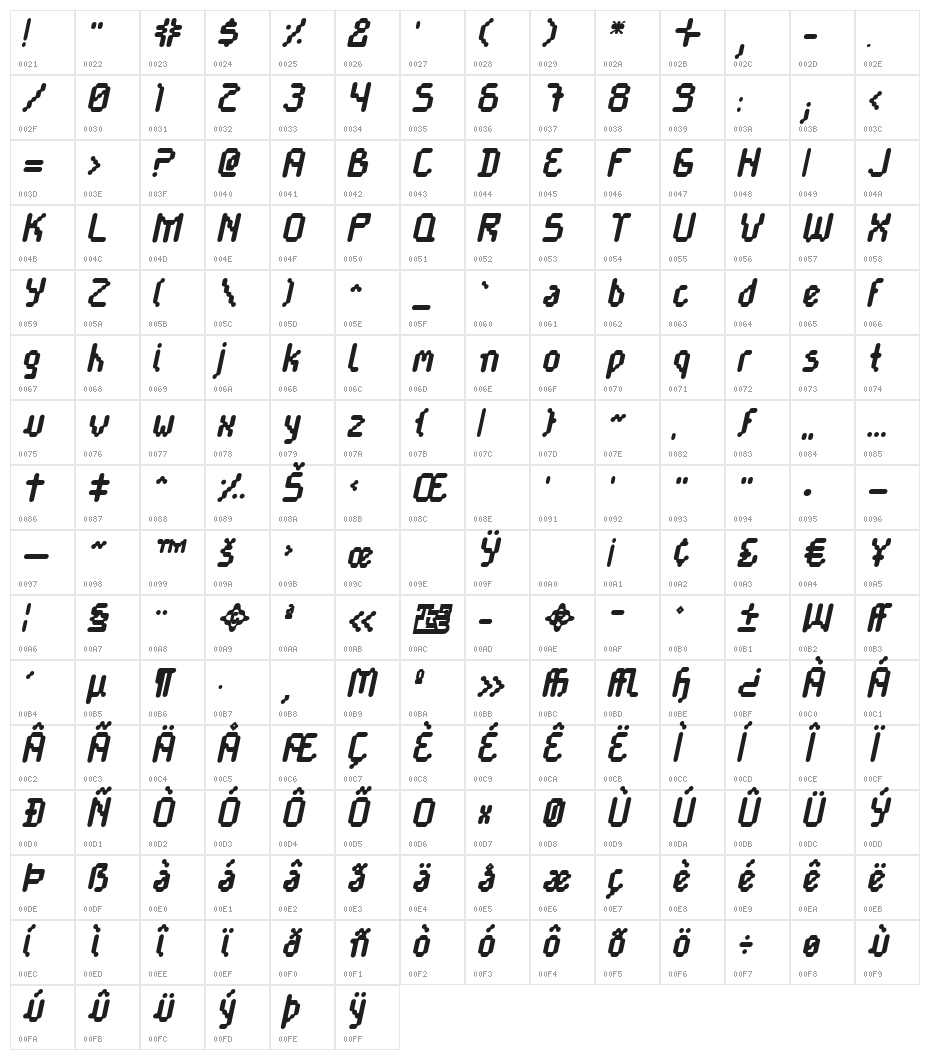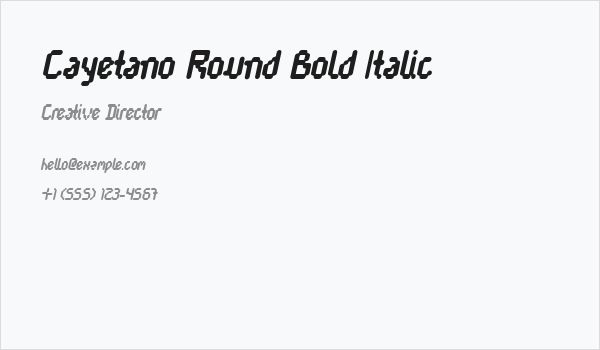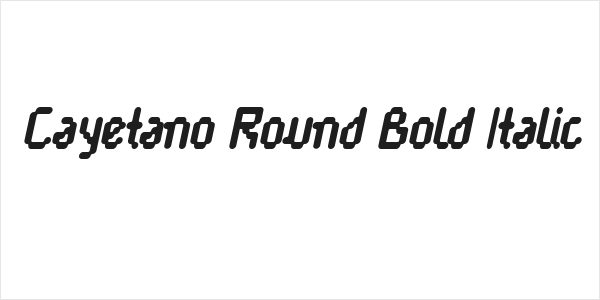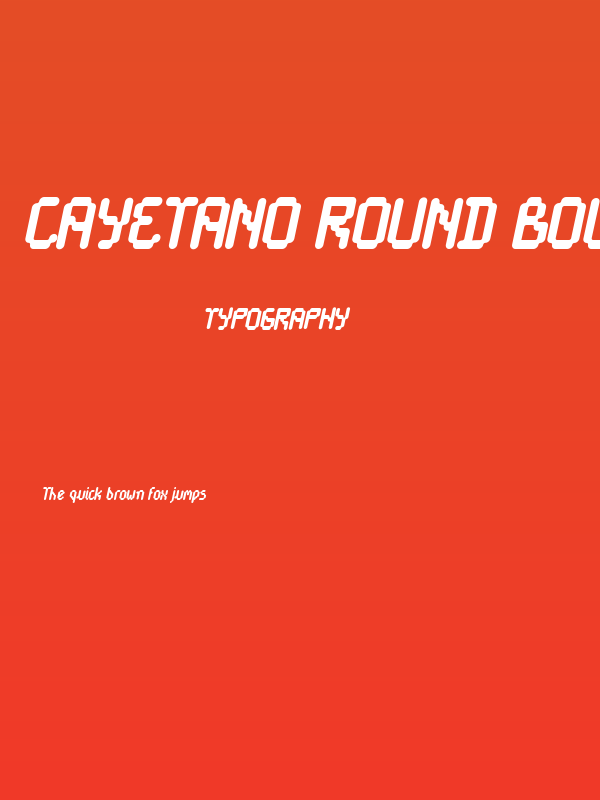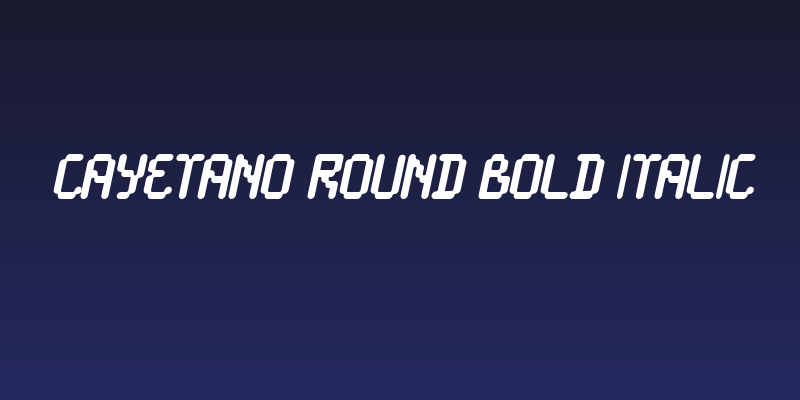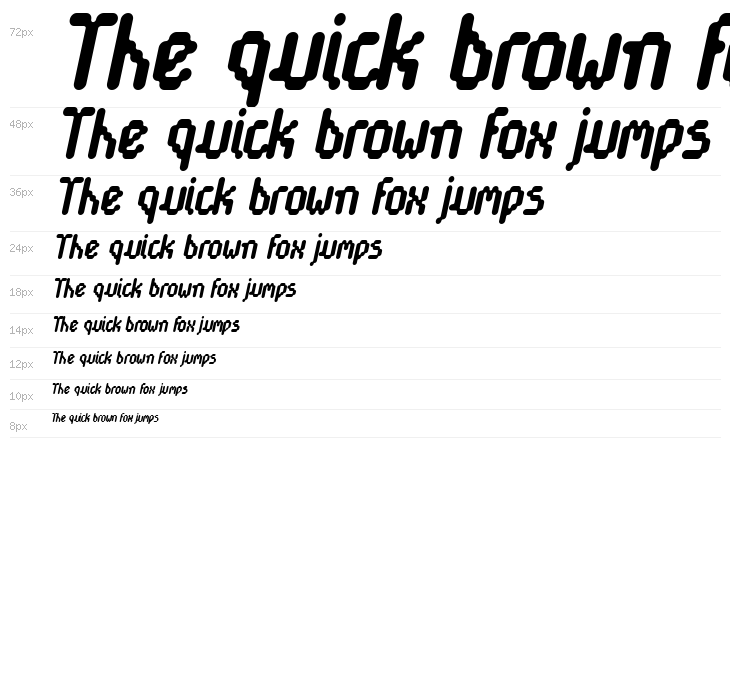
Cayetano Round Bold Italic Font
Cayetano Round Bold Italic Description
This font features a bold and rounded style with a playful and modern aesthetic. The characters are italicized, giving them a dynamic and forward-leaning appearance. The strokes are thick and consistent, contributing to a strong visual impact. The rounded edges soften the overall look, making it approachable and friendly. The spacing between characters is normal, ensuring readability while maintaining a cohesive appearance. This font is well-suited for projects that require a bold statement with a touch of whimsy.
| Proposed Projects | Ideal for branding, posters, children's books, and playful advertising campaigns. |